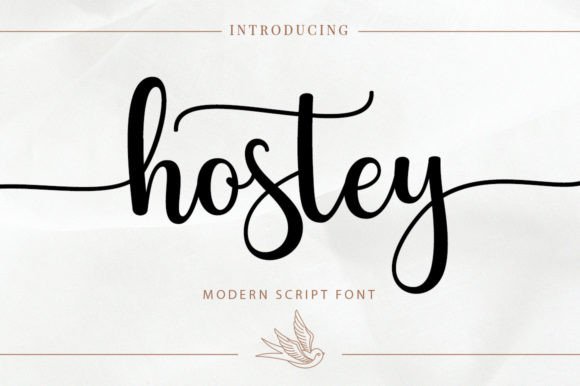
Introducing Hostey Font, the ultimate choice for those seeking the best font for modern resumes. Created by the talented team at LetterFreshStudio, this script font is more than just a typeface – it's a powerful tool that will elevate your design projects to new heights.
With its sleek and modern design, Hostey Font exudes sophistication, making it the perfect choice for those looking to make a lasting impression. Its flowing lines add a contemporary edge, while its unique flourishes and ligatures bring an element of elegance and charm.
But Hostey Font is not just a pretty face – it's also incredibly versatile. Whether you're working on branding, packaging, or editorial design, this font is sure to captivate your audience. Its eye-catching style and captivating presence will grab attention and leave a lasting impact.
One of the standout features of Hostey Font is its PUA encoding, which allows you to effortlessly access all glyphs and swashes. This means you have complete creative freedom to experiment and customize your designs to perfection. Let your imagination run wild as you explore the endless possibilities this font offers.
But why settle for ordinary when you can have extraordinary? Hostey Font is not your average script font – it's a game-changer. Its modern and stylish design sets it apart from the competition, making it a must-have for anyone looking to create a memorable visual experience.